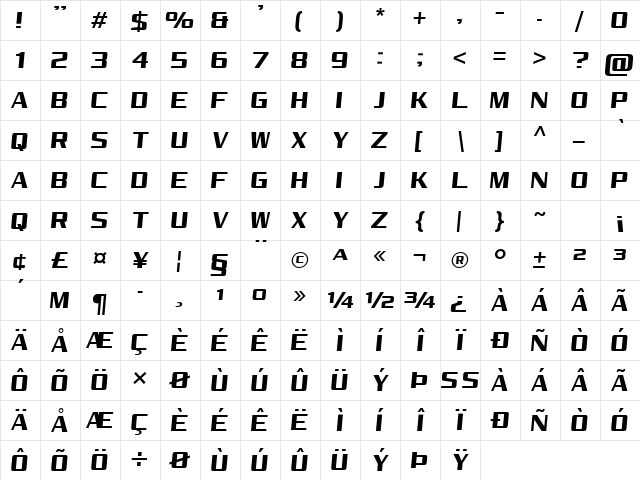
Reality Pursuit NC Regular
| Designer | Jayvee D. Enaguas |
Design Context for Reality Pursuit NC Typeface
Reality Pursuit NC is a composed and adaptable typeface that performs quietly and consistently across a wide range of design contexts.